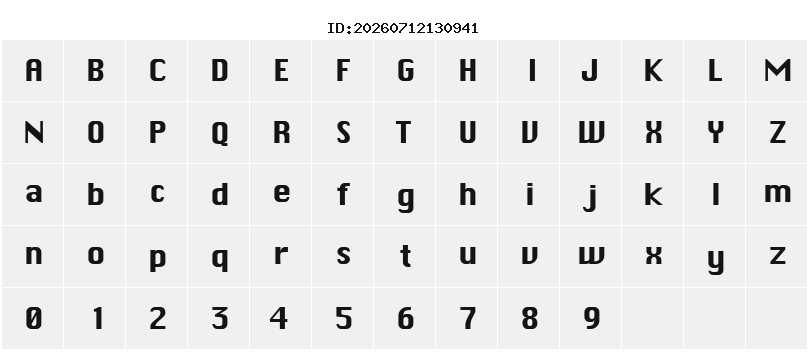
MacEnvy Preview
• Font Name: MacEnvy
• Full Font Name: MacEnvy-Regular
About MacEnvy.ttf
MacEnvy.ttf is a modern, elegant sans-serif font designed for ultimate readability and visual harmony. Perfect for branding, headlines, web design, and print materials.